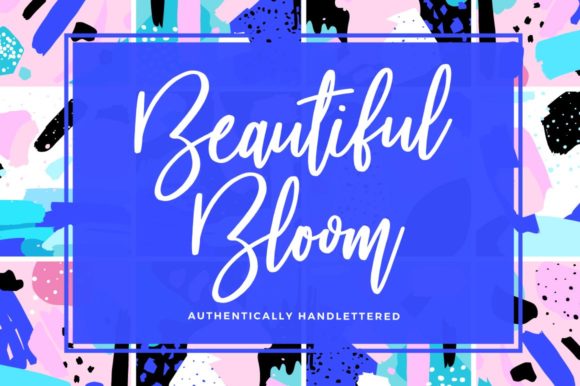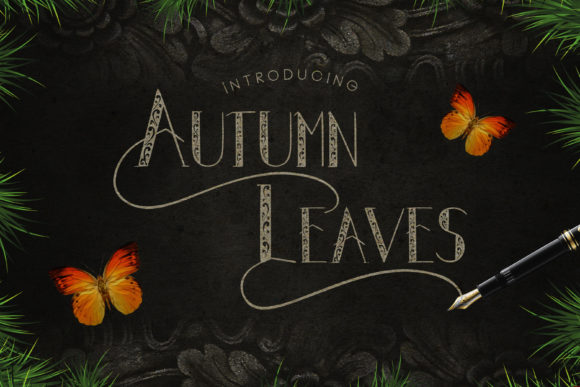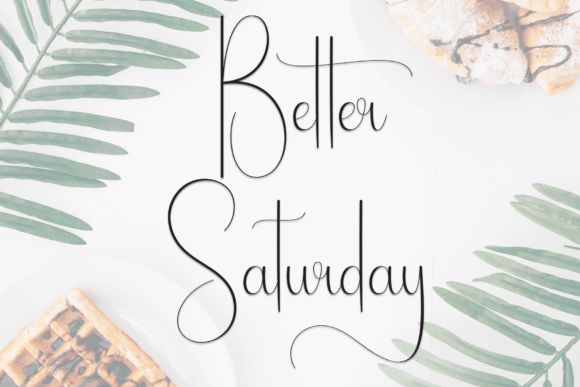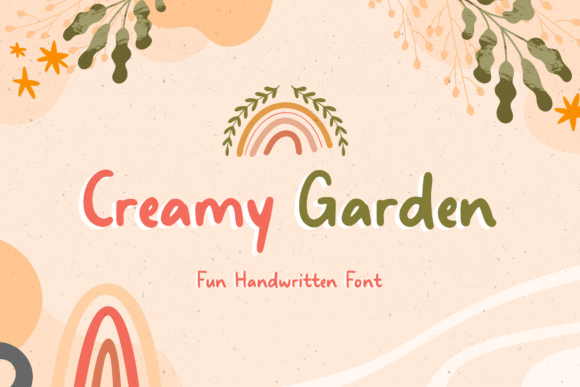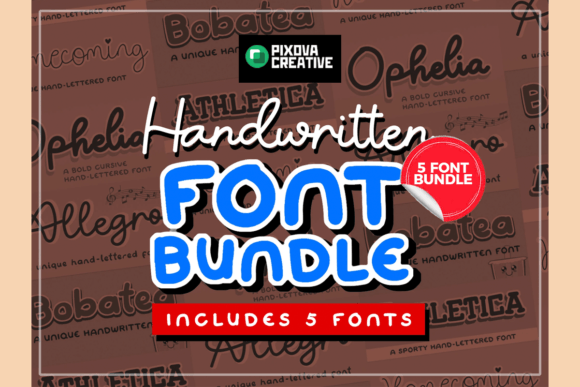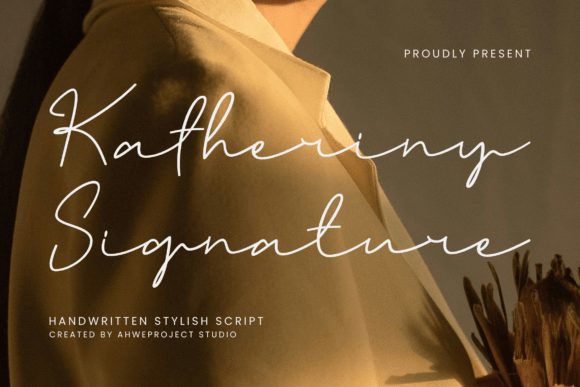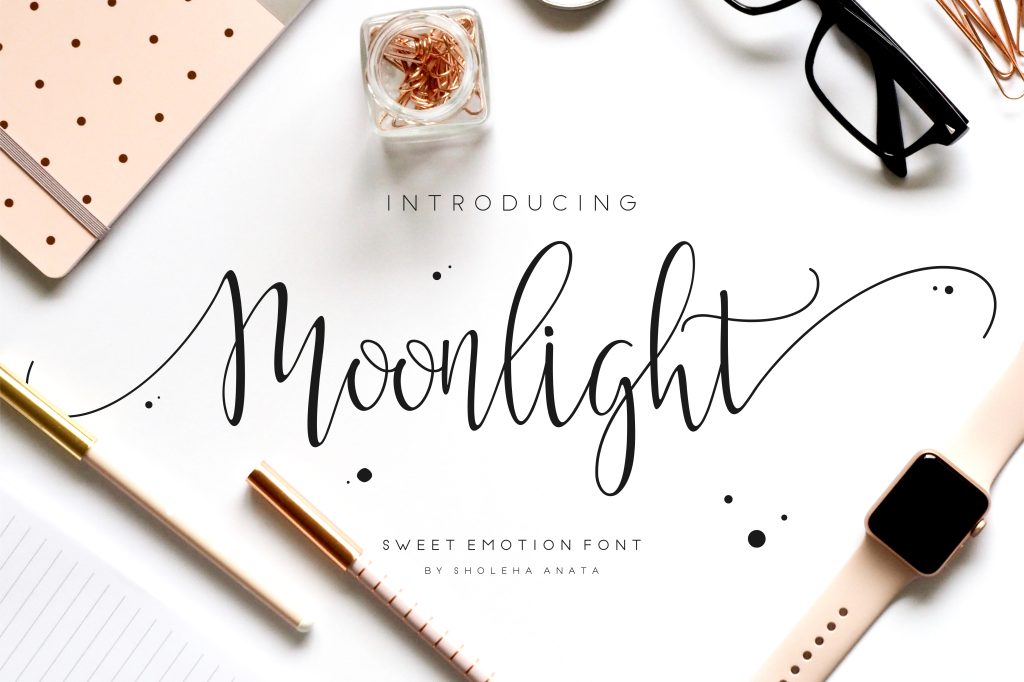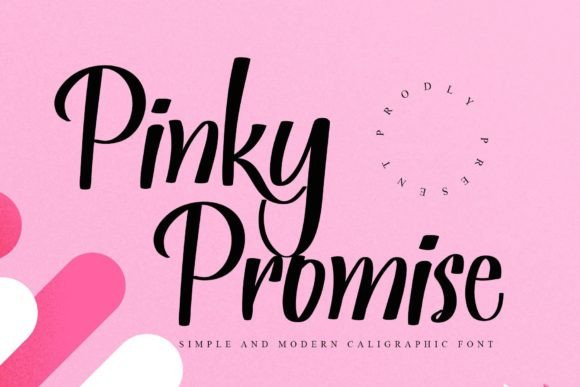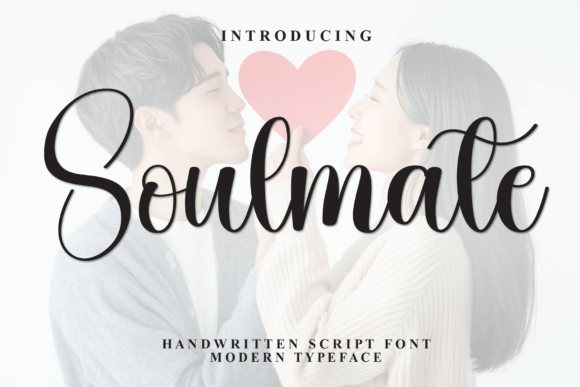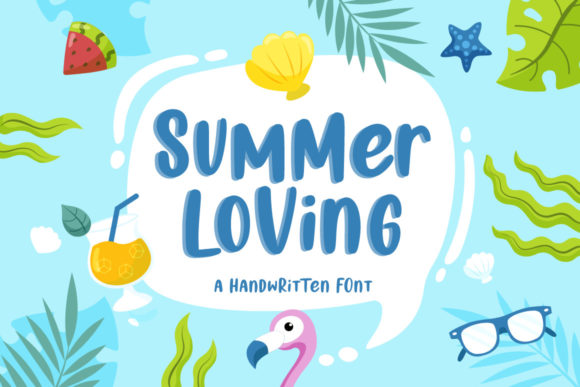
17 Most Beautiful Handwritten Fonts for Your Next Creative Project
Handwritten fonts bring a level of intimacy and elegance that standard serifs simply can’t match. Whether you are designing wedding invitations, creating custom apparel with your Cricut, or building a high-end brand identity, the right script can transform your work from “standard” to “stunning.”
In this guide, we have curated a list of the 28 most beautiful handwritten fonts available on Creative Fabrica. These fonts range from delicate, airy calligraphy to bold, modern signatures.
1. Roselya Script
Roselya is a classic. It features elegant loops and a sophisticated flow, making it perfect for high-end wedding stationery.
2. Beautiful Bloom
A playful yet refined font. It feels like natural handwriting with a touch of artistic flair.
3. Hello Honey
Famous for its beautiful heart swashes, Hello Honey is a favorite for Cricut users and DIY crafters.
4. Amsterdam Letters
A minimalist and chic handwritten font that looks like it was written with a fine-liner pen.
5. Better Saturday
This font offers a casual, “hand-lettered” feel that works wonders for social media quotes and casual branding.
6. Honeymoon Script
Romantic and whimsical, Honeymoon Script is designed for lovers and dreamers.
7. Stay Gold
Stay Gold is a thick, textured script that provides a handmade feel to any physical product design.
8. Katherine Signature
A very realistic handwriting style that feels personal and approachable.
9. Autumn Leaves
Bring a warm, seasonal feel to your crafts with this cozy and fluid script.
10. Moonlight Script
Elegant and smooth, Moonlight is a versatile font that works across print and digital media.
11. Creamy Garden
As the name suggests, this font is smooth and organic. It’s perfect for eco-friendly or floral branding.
12. Pinky Promise
A cute, monoline handwritten font that is exceptionally readable for labels and journals.
13. Soulmate Script
A heavy-set script font that creates a striking visual impact on posters and t-shirts.
14. Vintage Dreams
For those who love retro vibes, Vintage Dreams provides a nostalgic handwritten look.
15. Always Together
The perfect font for anniversary cards and couple-themed designs, featuring lovely connecting swashes.
16. Handwriting Collection
A bundle of various handwriting styles that offer versatility for any project.
17. Summer Loving
End your search with this fun, vibrant script that brings a sun-soaked feel to every design.
Tips for Using Handwritten Fonts:
• Pairing: Combine a script font with a simple Sans-Serif font to create a balanced look.
• Legibility: Always ensure the font is readable, especially for important information like dates and addresses.
• Swashes: Use the extra glyphs and swashes (often found in “Private Use Areas” or PUA) to add that professional custom touch.